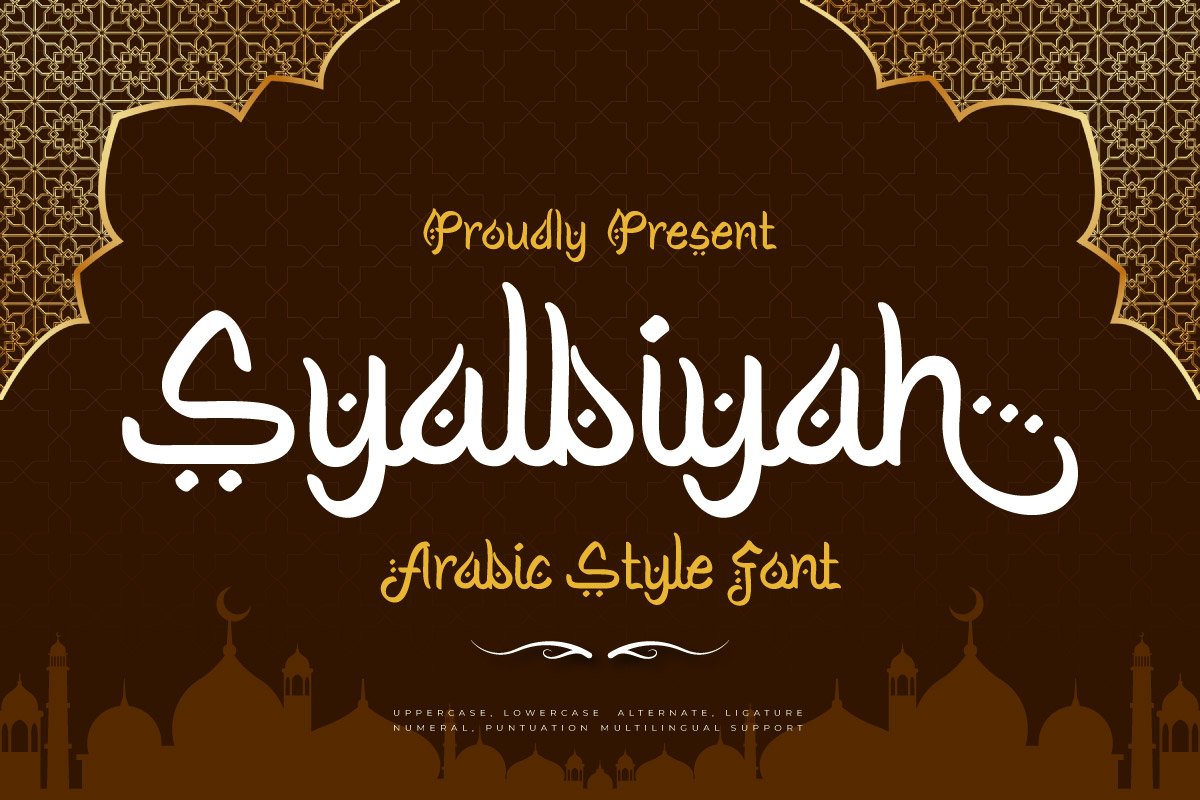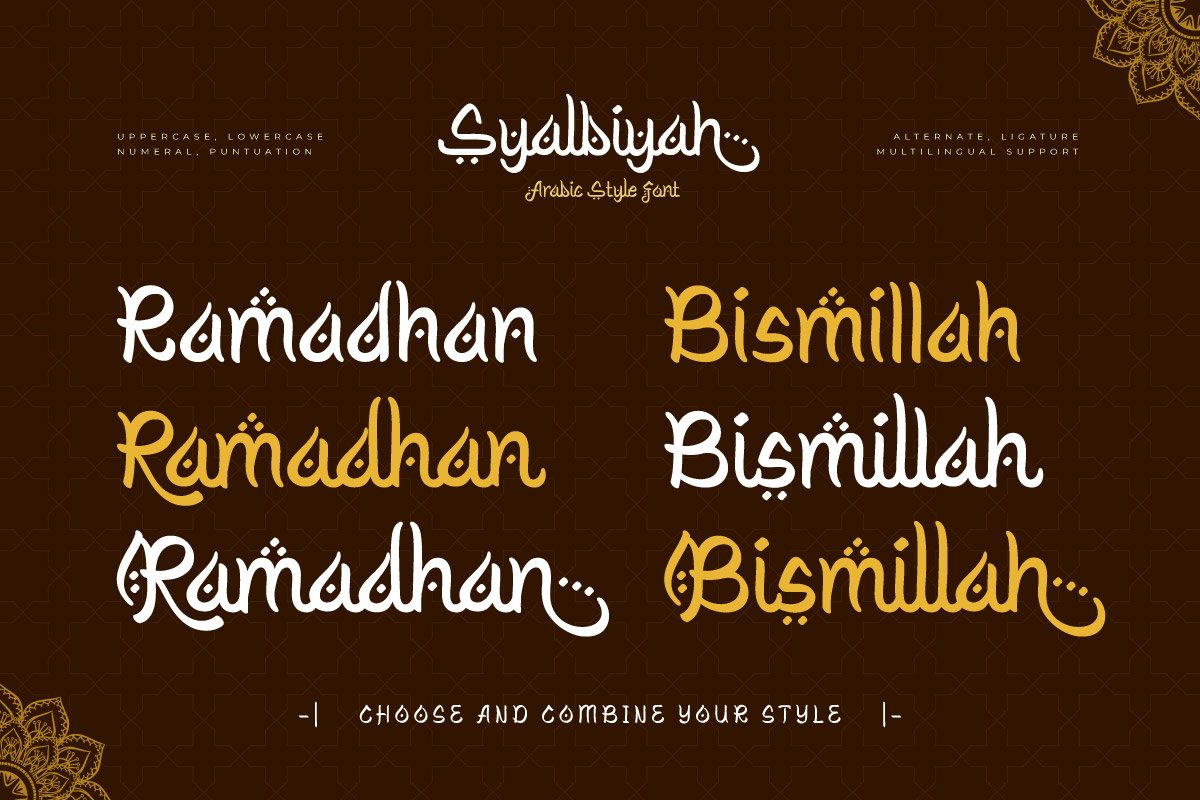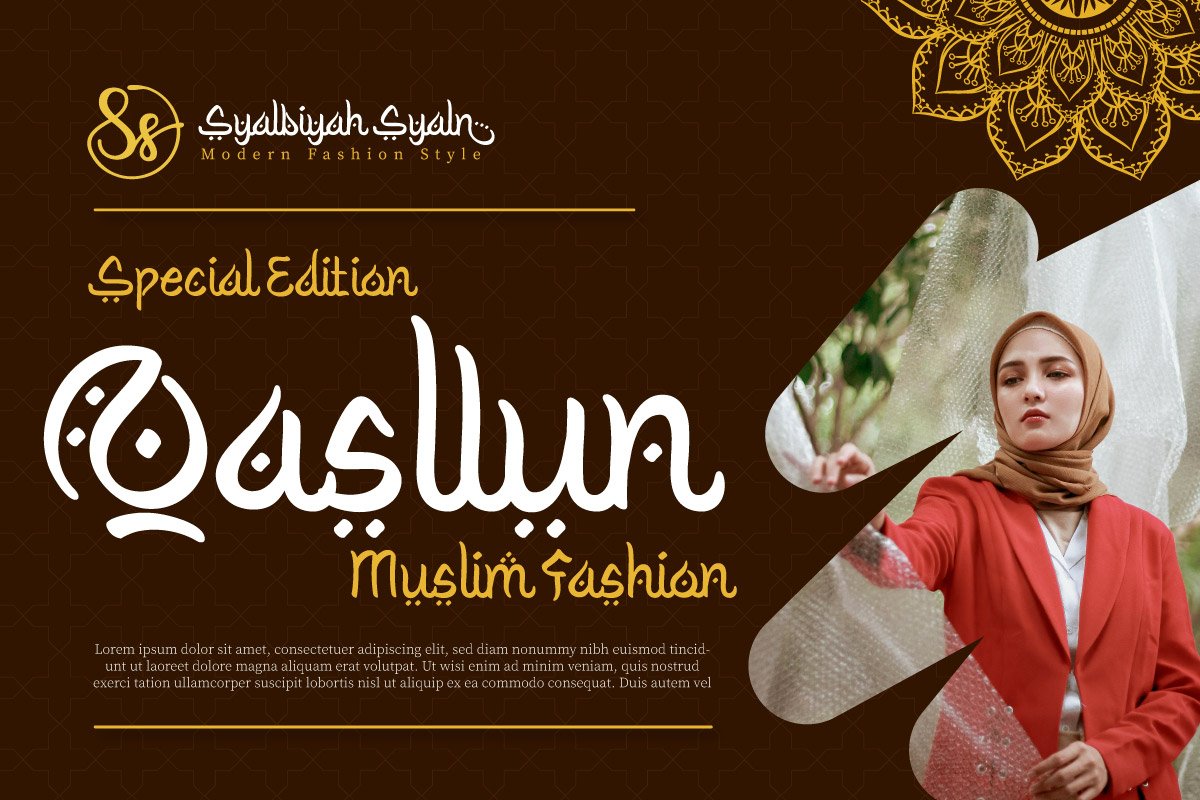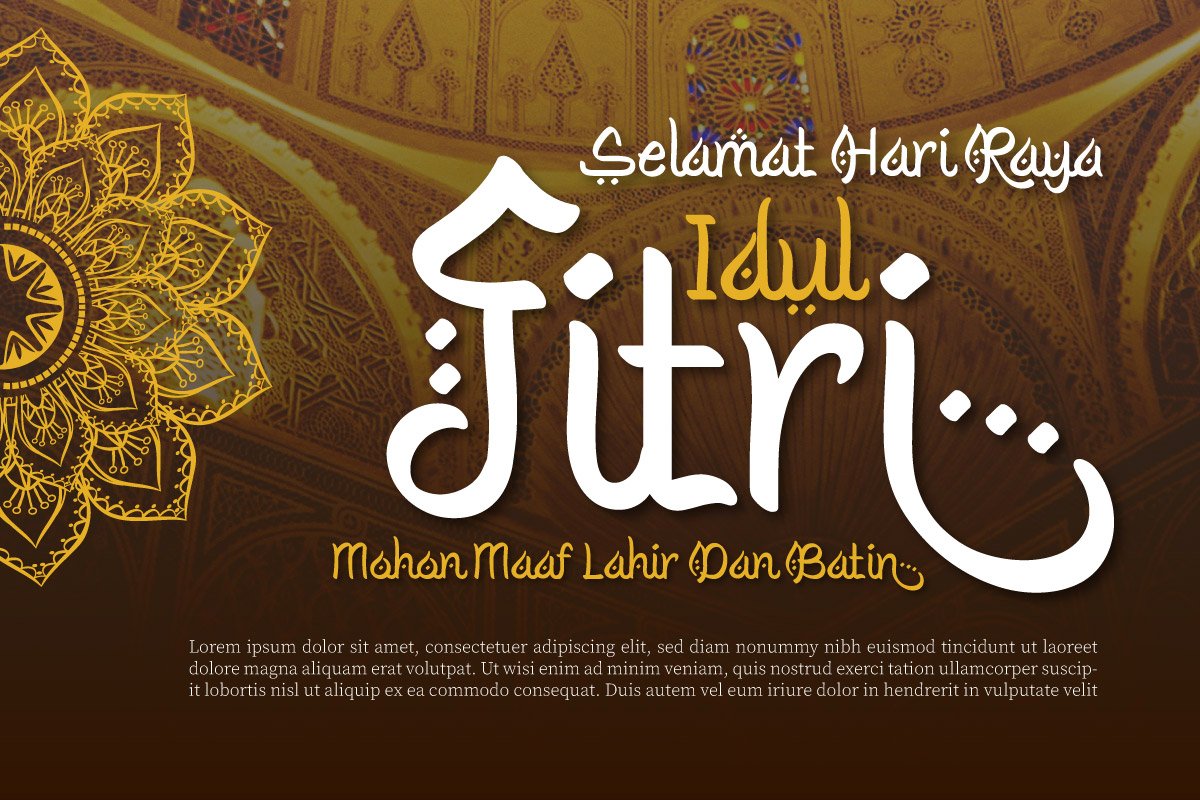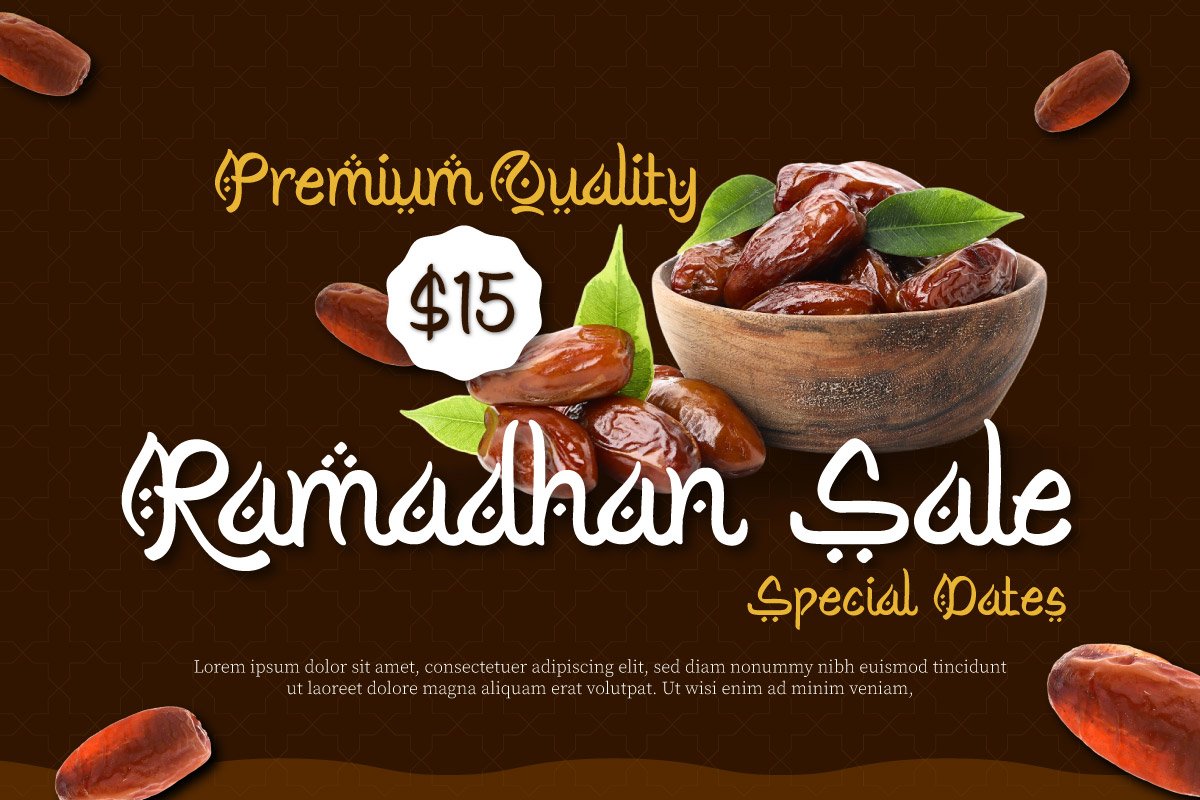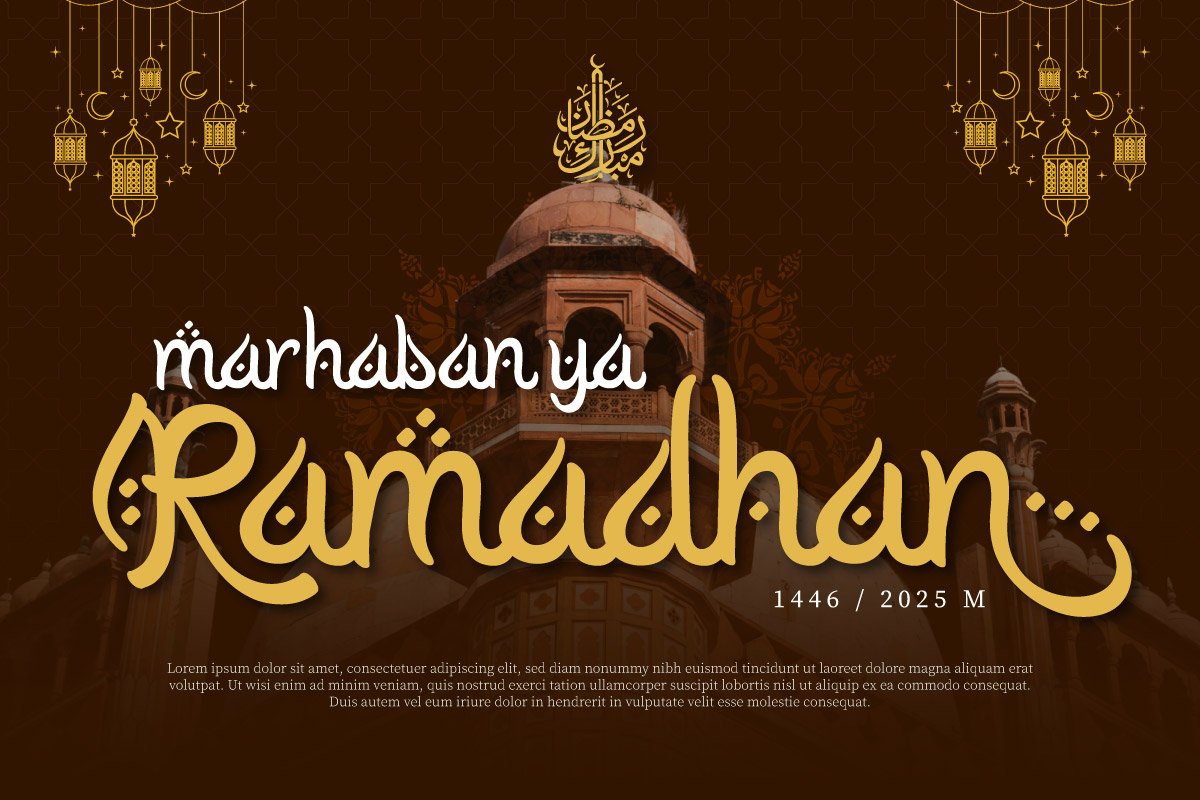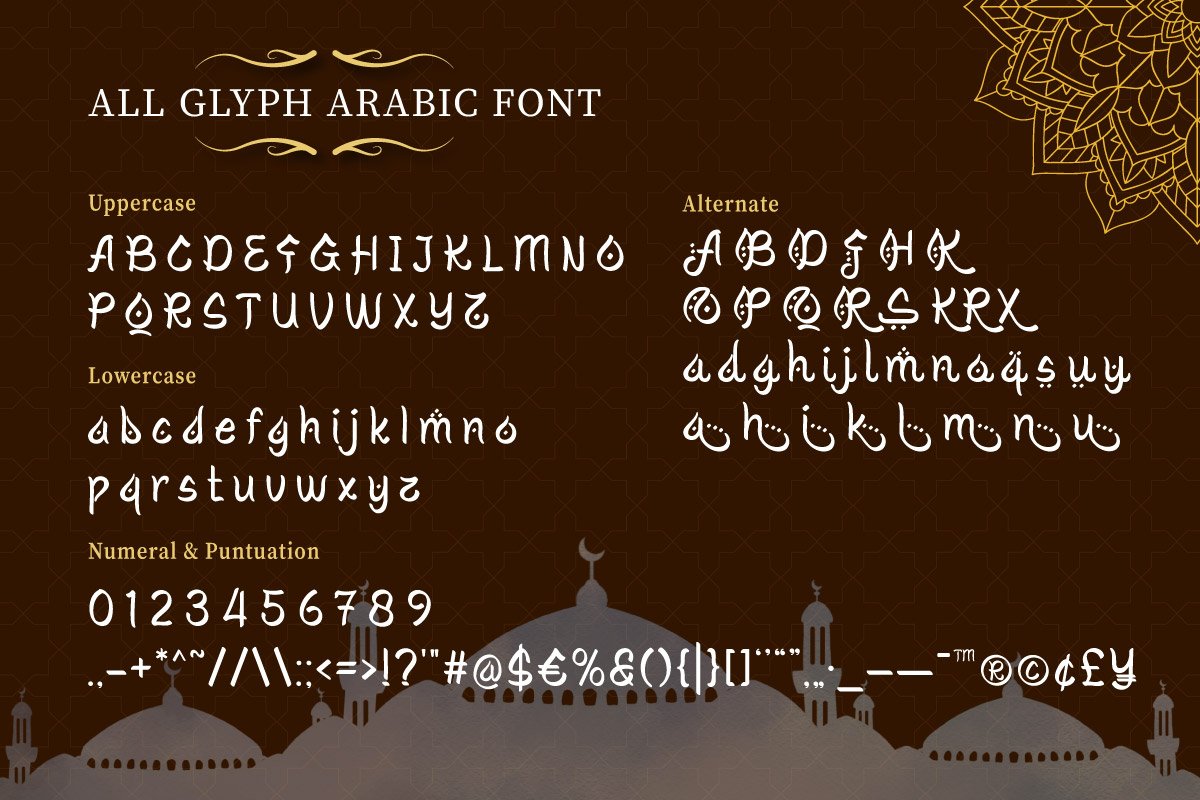
Syalbiyah – Arabic Style Font
Syalbiyah is a graceful Arabic-style display font that captures the beauty of Middle Eastern calligraphy while maintaining modern readability. Its flowing strokes, elegant curves, and cultural nuances make it perfect for designs that seek an authentic touch of tradition and artistry.
Crafted with both uppercase and lowercase letters, alternates, ligatures, numerals, punctuation, and multilingual support, Syalbiyah offers flexibility for a wide range of creative projects. From Islamic-themed posters, invitations, and packaging to branding, book covers, and digital artworks, this font brings a refined cultural atmosphere to any design.
Whether you’re celebrating Ramadan, Eid, or simply want to infuse your project with a touch of Arabic-inspired elegance, Syalbiyah is a timeless choice that blends heritage with modern style.